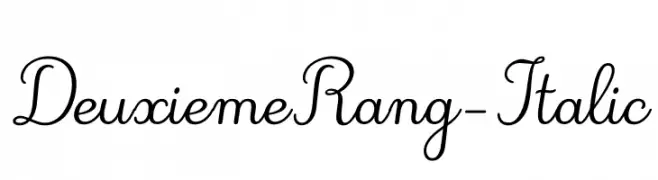
A modern cursive font with flowing, connected letters and a handwritten feel.
A graceful script font with a flowing italic style and moderate stroke contrast.